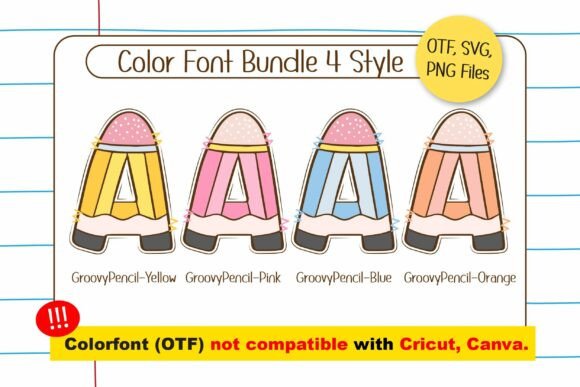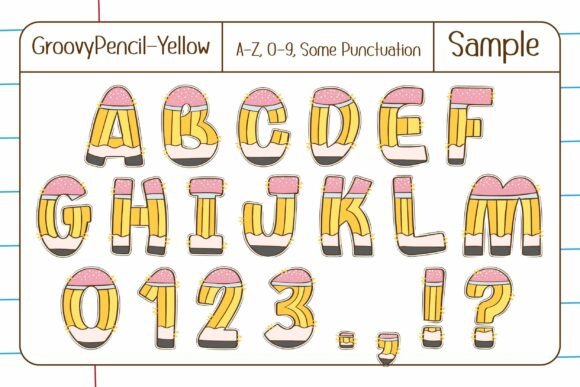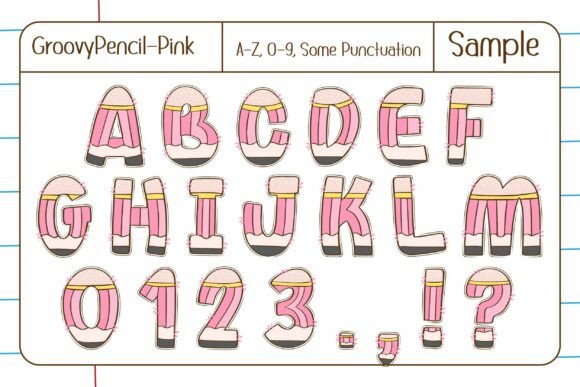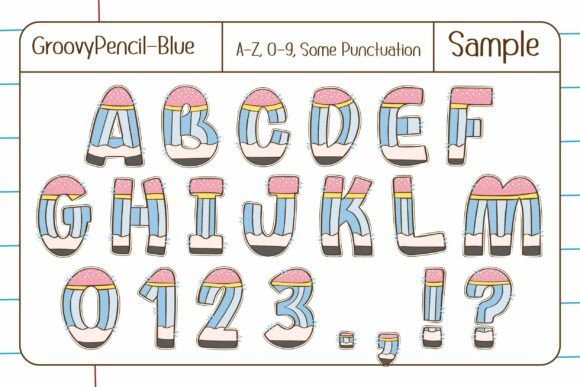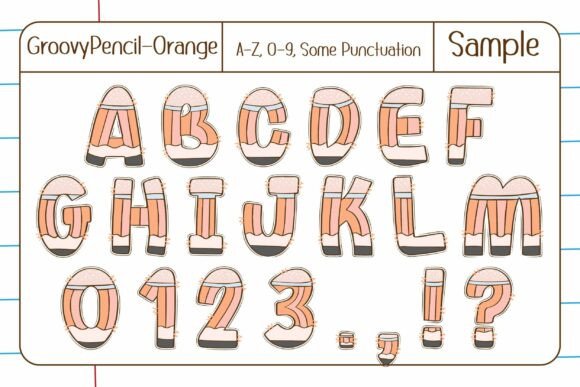
Introduction to Groovy Pencil Font
Introducing “Groovy Pencil,” a fun and vibrant hand-drawn color font designed especially for Back-to-School projects.
Combining a bold font style with adorable pencil-shaped letter details and playful doodle elements, this font brings creativity and excitement to every design Available in 4 bright colors, “Groovy Pencil” also includes 25 cute school-themed doodle cliparts featuring classroom essentials and educational icons.